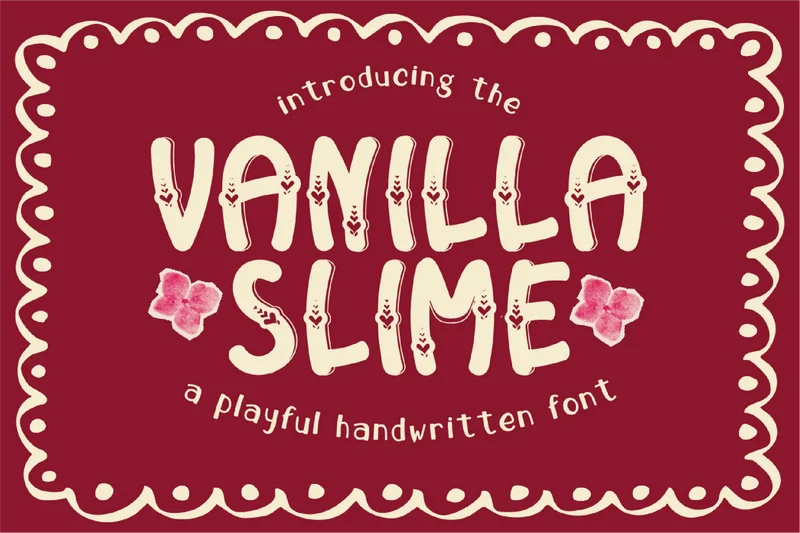
Vanillaslime – Playful Display Font
Vanillalisme is a playful display font designed to bring a fun and cheerful vibe to any project. With its quirky shapes and lively character, this typeface is perfect for posters, branding, packaging, headlines, and creative designs that need a bold and joyful touch.